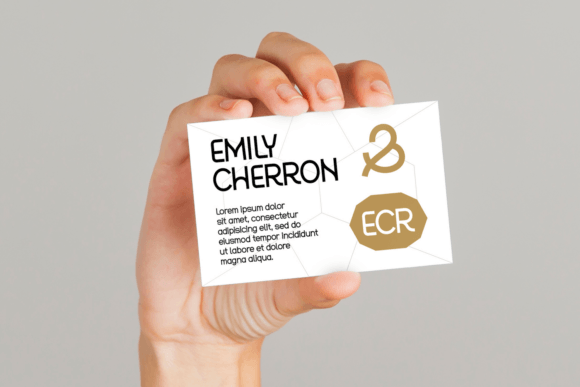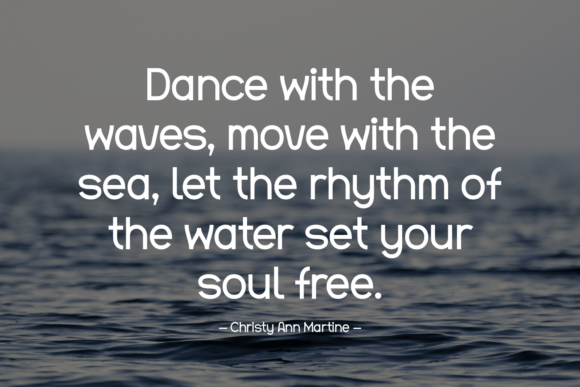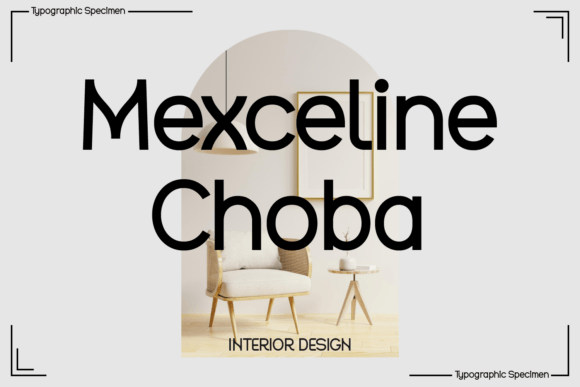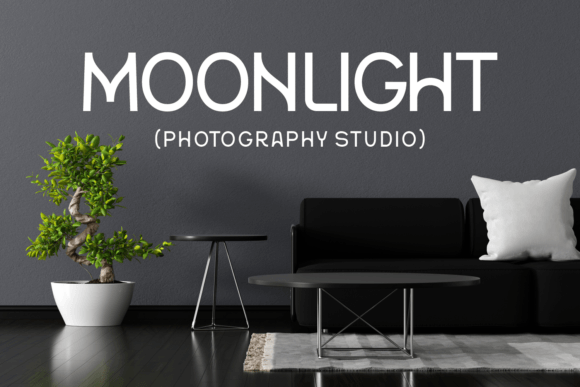
I still remember the frustration of working on a branding project for a trendy new cafe, only to find that my go-to fonts just weren’t cutting it. The client wanted something modern, sleek, and Instagram-worthy, but my usual suspects looked dull and uninspired. That’s when I stumbled upon **Gither Choba**, a game-changing sans-serif font that has since become a staple in my design toolkit.
A First Impression: What Makes Gither Choba Special
Gither Choba is a sleek and modern sans-serif font designed for versatility and style. Its clean lines and balanced proportions make it perfect for branding, web design, and editorial layouts. With a contemporary feel and excellent readability, it adds sophistication to any creative project.
- ✨ **Clean and modern aesthetic**: Gither Choba’s sleek lines and balanced proportions make it perfect for projects that require a contemporary feel.
- ✅ **Excellent readability**: This font shines in body text, making it ideal for editorial layouts, blogs, and websites.
- 💡 **Versatility**: Gither Choba works beautifully in both digital and print applications, from social media graphics to business cards.
- 🎨 **OpenType features**: This font comes with a range of stylistic alternates, glyphs, and ligatures to give your designs an extra creative boost.
- 🤔 **Limited character set**: While Gither Choba covers the basics, it may not have extensive language support or specialty characters.
- ⚠️ **Overuse of stylistic alternates**: With great power comes great responsibility – be mindful of overusing the font’s stylistic features, lest your design starts to feel cluttered.
Exploring Alternatives: Similar Fonts to Gither Choba
If you’re looking for similar fonts to complement Gither Choba, consider these alternatives:
- Montserrat: A geometric sans-serif with a similar urban feel, ideal for tech and finance branding.
- Inter: A contemporary sans-serif with a focus on digital readability, perfect for web design and UI/UX projects.
- Avenir: A geometric sans-serif with a similar sense of sophistication, suitable for luxury branding and high-end editorial layouts.
- Open Sans: A clean and modern sans-serif with a friendly feel, great for blogs, websites, and educational materials.
The Story Behind Gither Choba: Designer Inspiration
While the true story behind Gither Choba’s creation remains a mystery, it’s easy to imagine a designer striving to craft a font that embodies modernity, simplicity, and style. Perhaps they drew inspiration from the urban landscape, seeking to distill the essence of contemporary design into a versatile and beautiful typeface.
Q: What makes Gither Choba suitable for branding projects?
A: Gither Choba’s clean lines, balanced proportions, and modern aesthetic make it an excellent choice for branding projects that require a sleek and sophisticated look.
Q: Can I use Gither Choba for body text?
A: Absolutely! Gither Choba’s excellent readability makes it well-suited for body text in editorial layouts, blogs, and websites.
Q: Does Gither Choba support OpenType features?
A: Yes, Gither Choba comes with a range of OpenType features, including stylistic alternates, glyphs, and ligatures to enhance your design.
Q: Is Gither Choba suitable for print and digital applications?
A: Yes, Gither Choba is designed to work beautifully in both print and digital applications, from business cards to social media graphics.